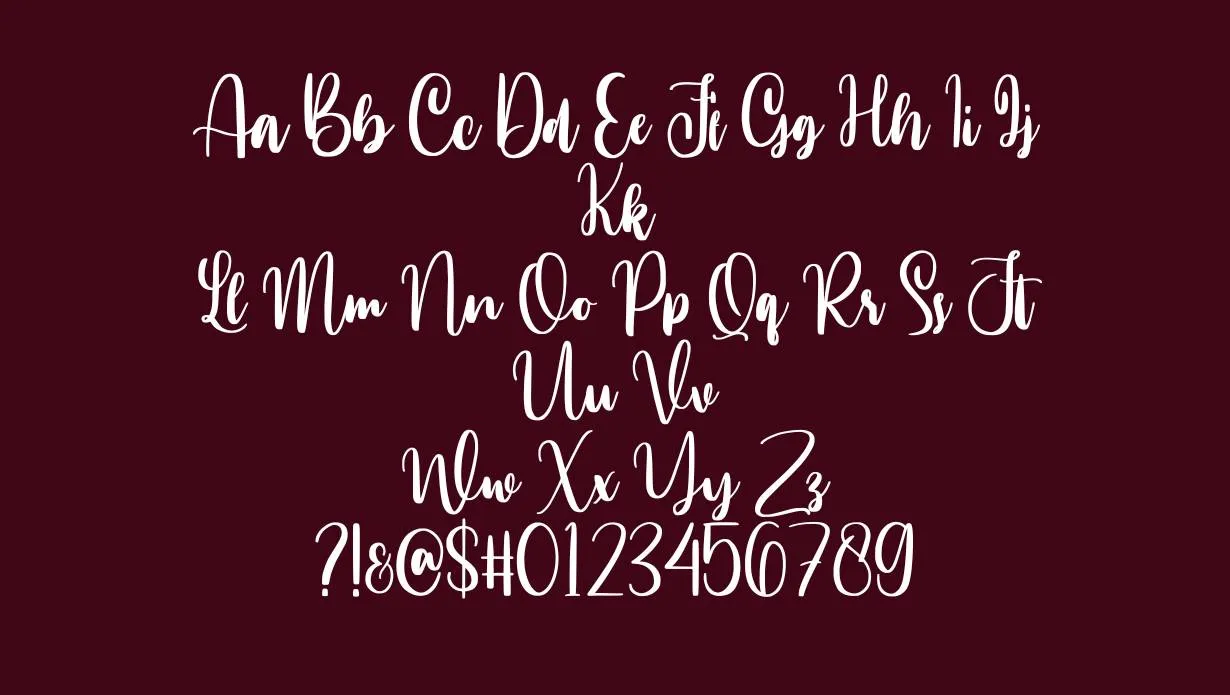
Annamellia Handlettering font infuses designs with a personal and artistic feel. Often seen in invitations, greeting cards, or any project aiming for a warm and welcoming vibe, this font’s handwritten style brings a touch of individuality and sincerity to texts.
| Name | Annamellia Handlettering Font |
| Designer | good java studio |
Its personal touch adds a sense of warmth and genuine connection, making designs feel more intimate and inviting. When your aim is to elicit the best possible response from your audience, combining the cloudy night font with this font family creates a powerful pairing.